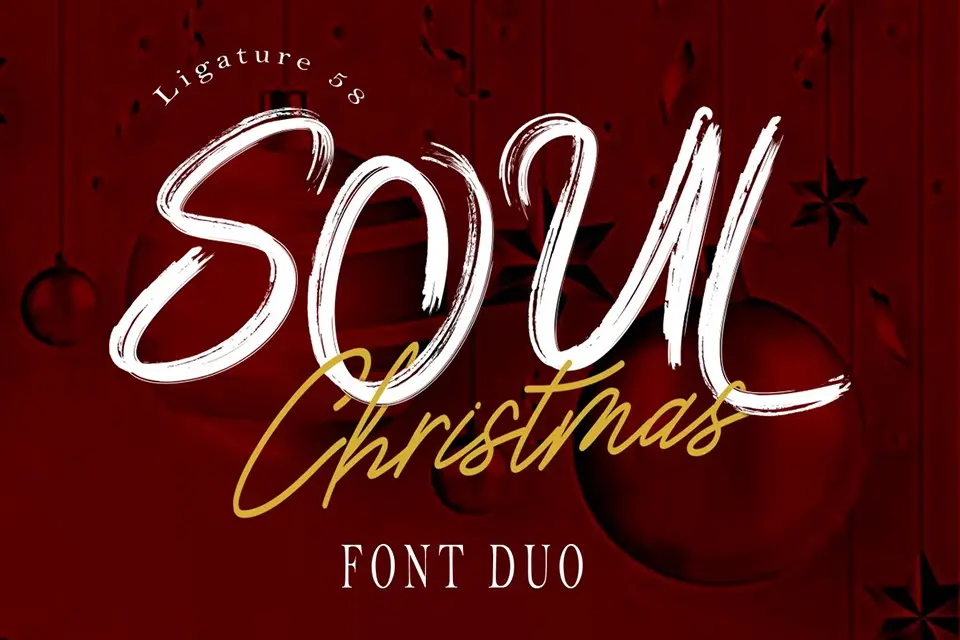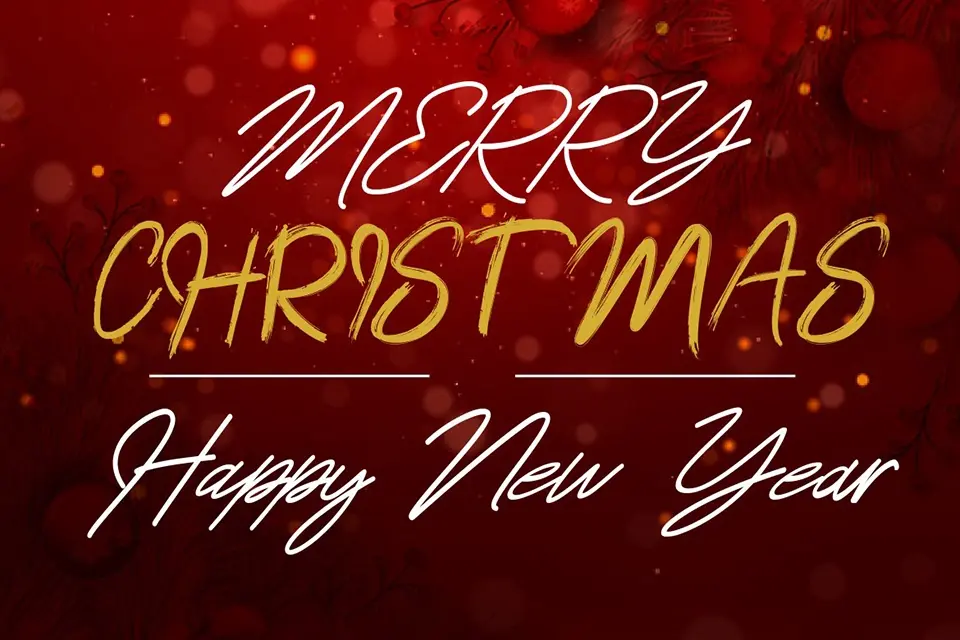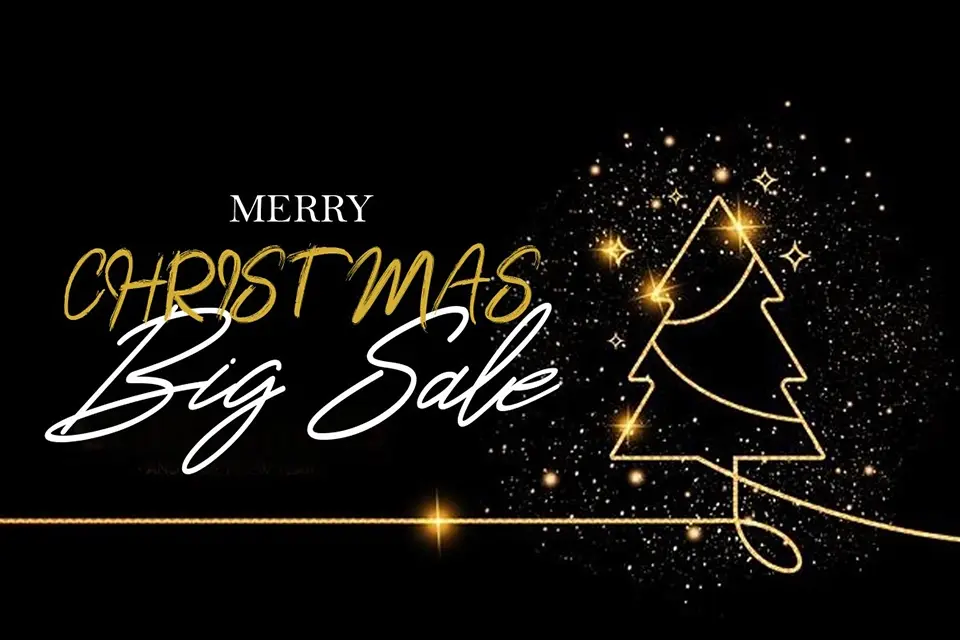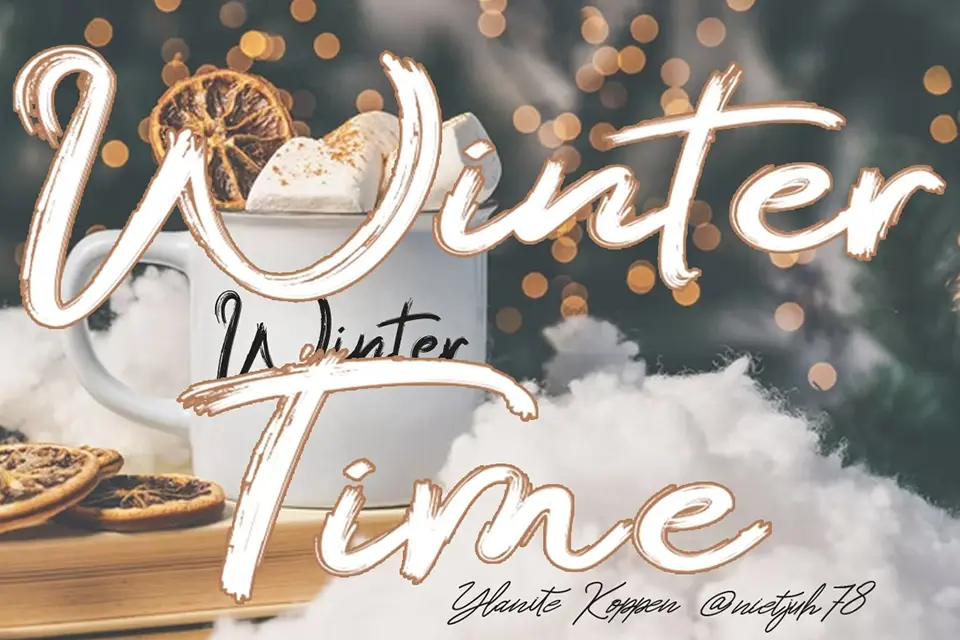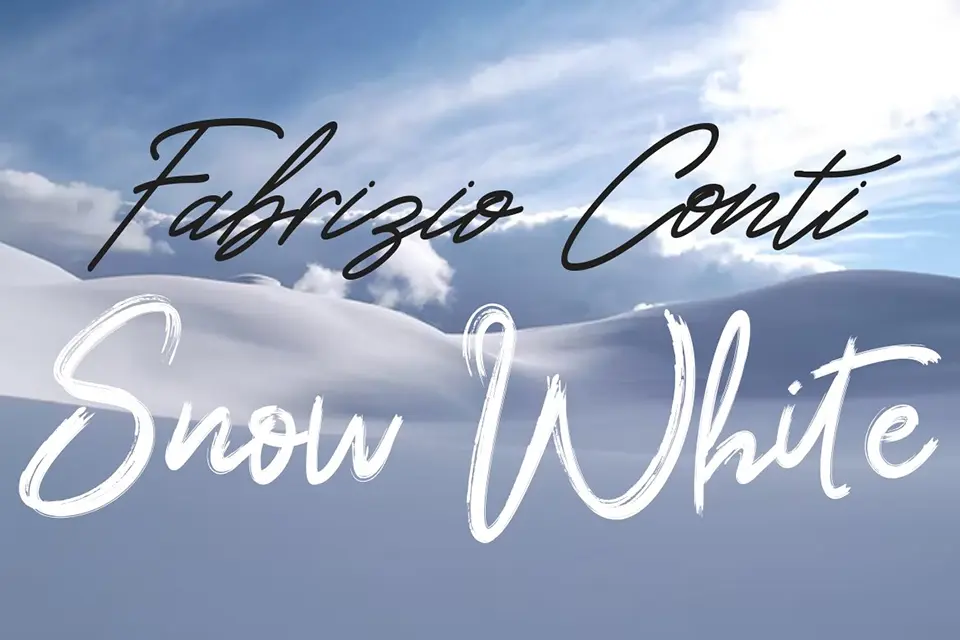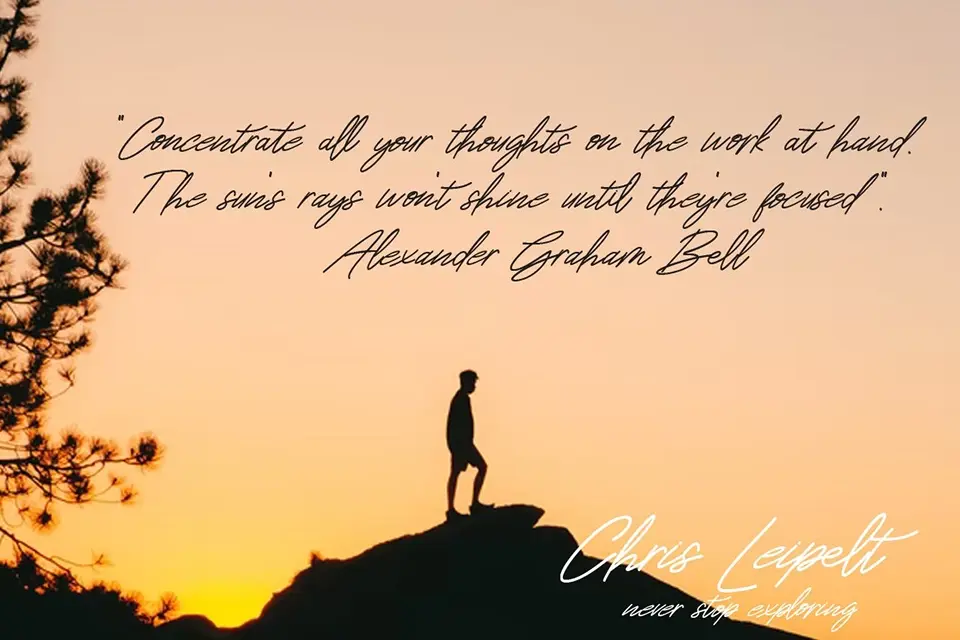
Soul Christmas Font
Soul is a charming brush script typeface designed for creative projects. This elegant handwritten font features soft and flowing strokes with natural texture, making it perfect for logos, branding, packaging, and festive designs. The font delivers a contemporary yet approachable aesthetic that brings personality and character to any creative work.